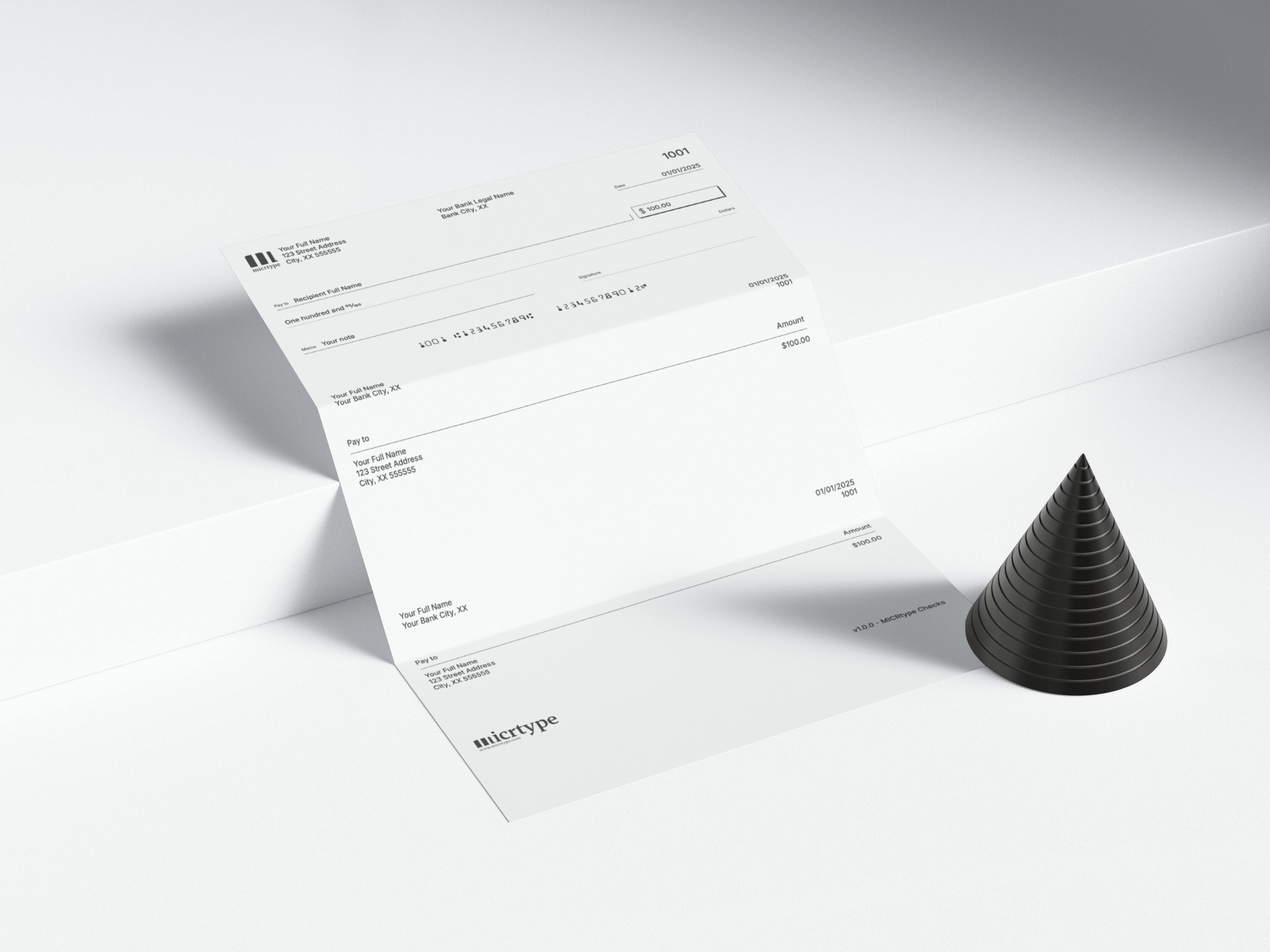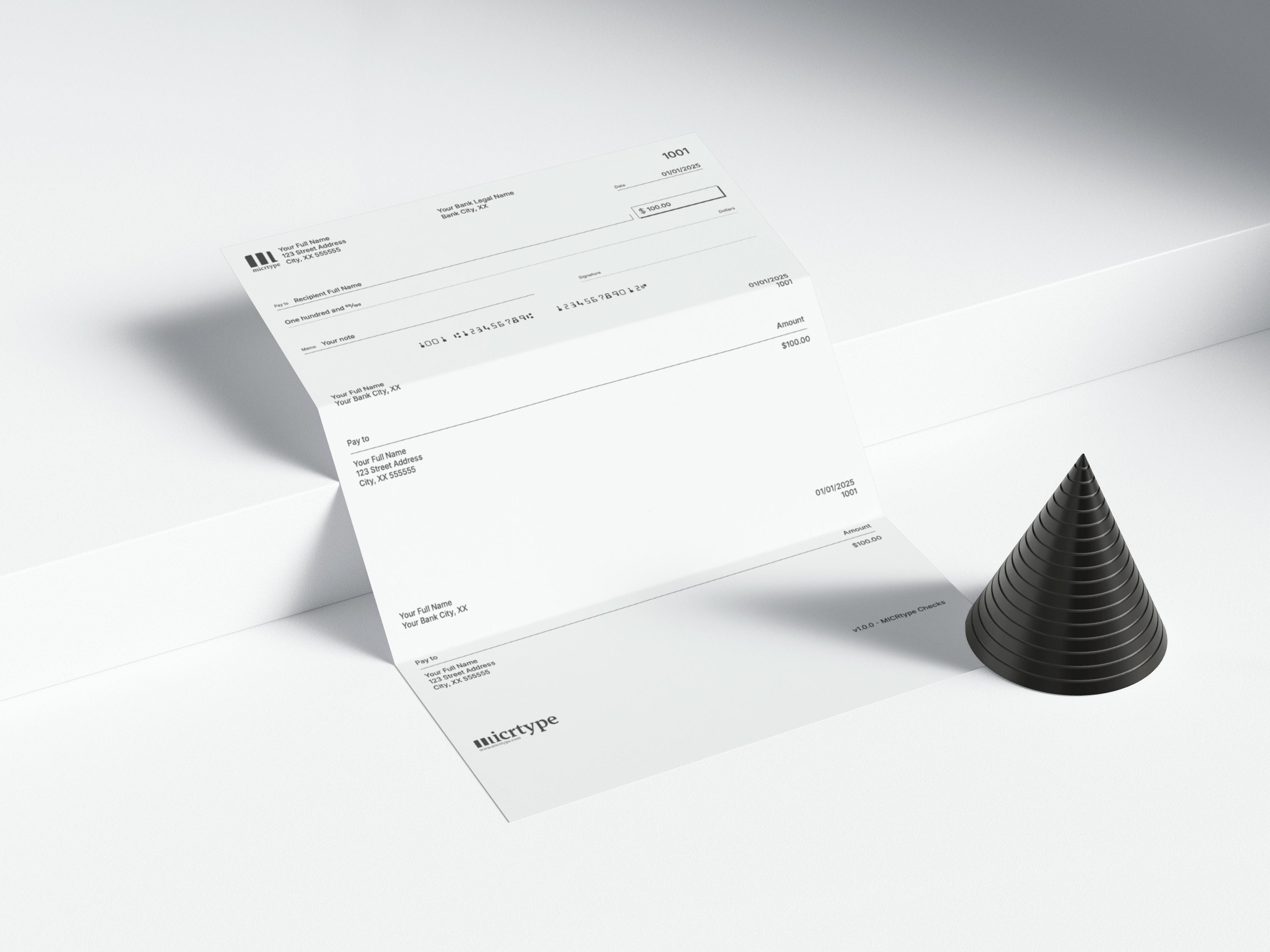
MICRtype Checks
Our new Check Template & Fonts Bundle is designed for anyone who wants to print professional checks at home or in the office—no fuss, no expensive software. Each template comes with the MICRtype E-13B font and a full license, so you’re ready to go right out of the box.
We keep our check layouts current with the latest ANSI standards, so your checks look right and process smoothly at the bank.
1. Our ultra-precise MICR E13-b font.